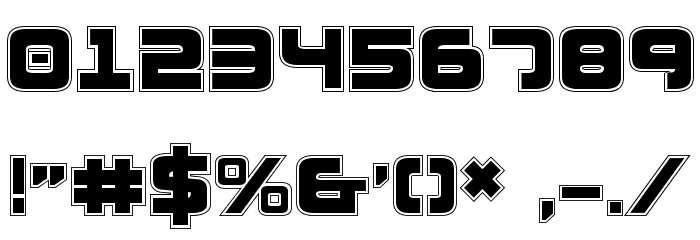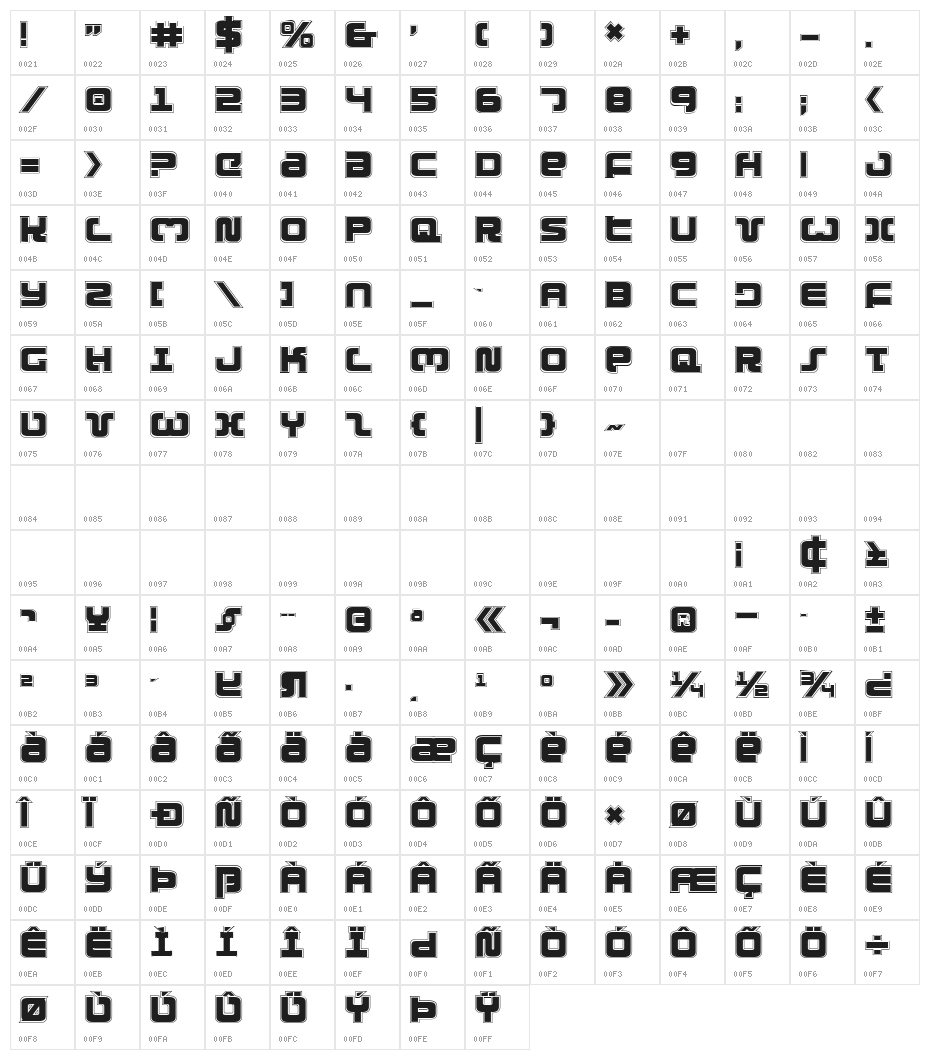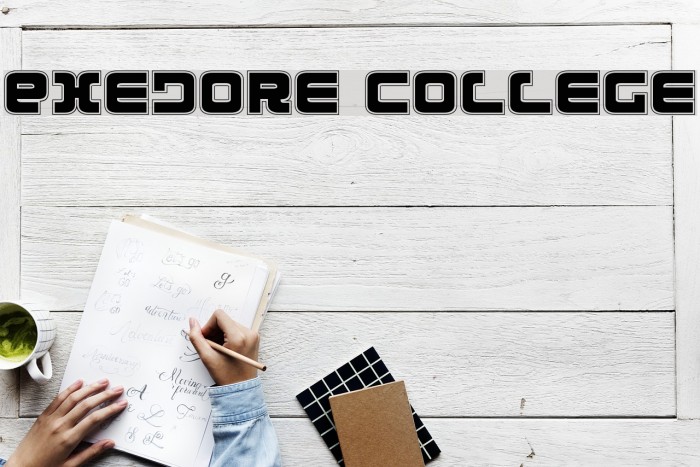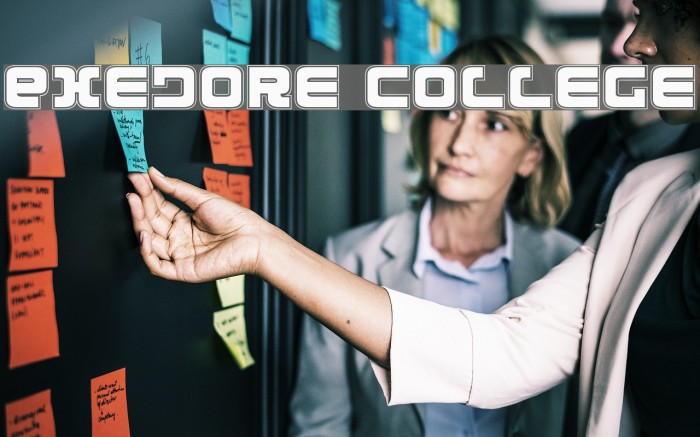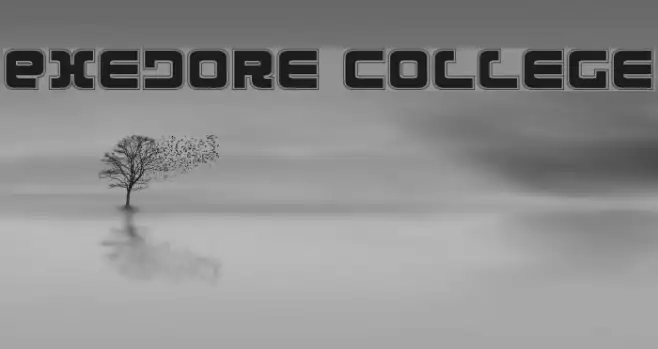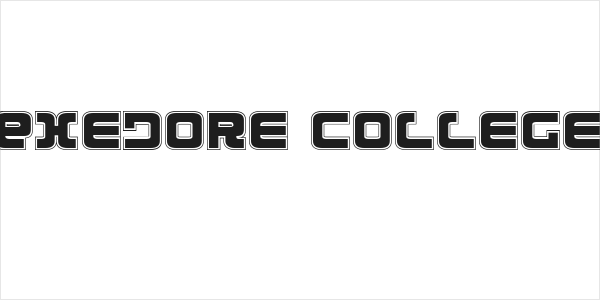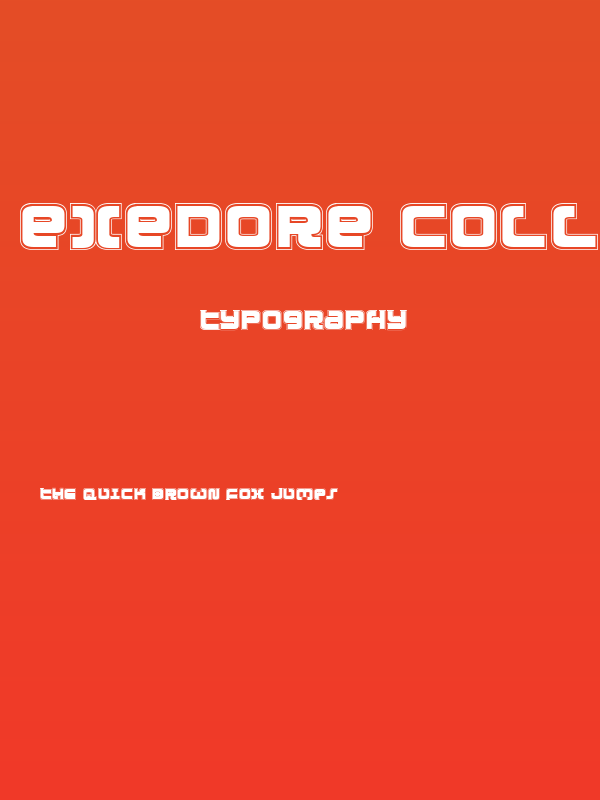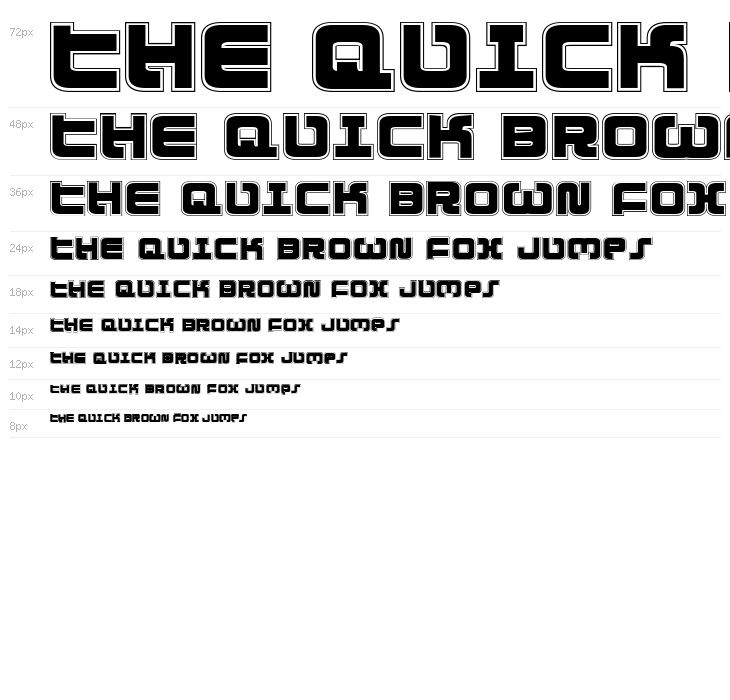
Exedore College Font
Exedore College Description
This font features a bold, geometric style with a strong presence. Each character is outlined, creating a striking contrast between the inner and outer spaces. The letters are uniformly structured, with a blocky, futuristic appearance that is both modern and distinctive. The uppercase and lowercase letters maintain a consistent design, while the numbers and special characters complement the overall aesthetic. The font's unique style makes it suitable for eye-catching designs and projects that require a bold statement.
| Proposed Projects | Ideal for branding, posters, video game graphics, and any project needing a modern, bold look. |